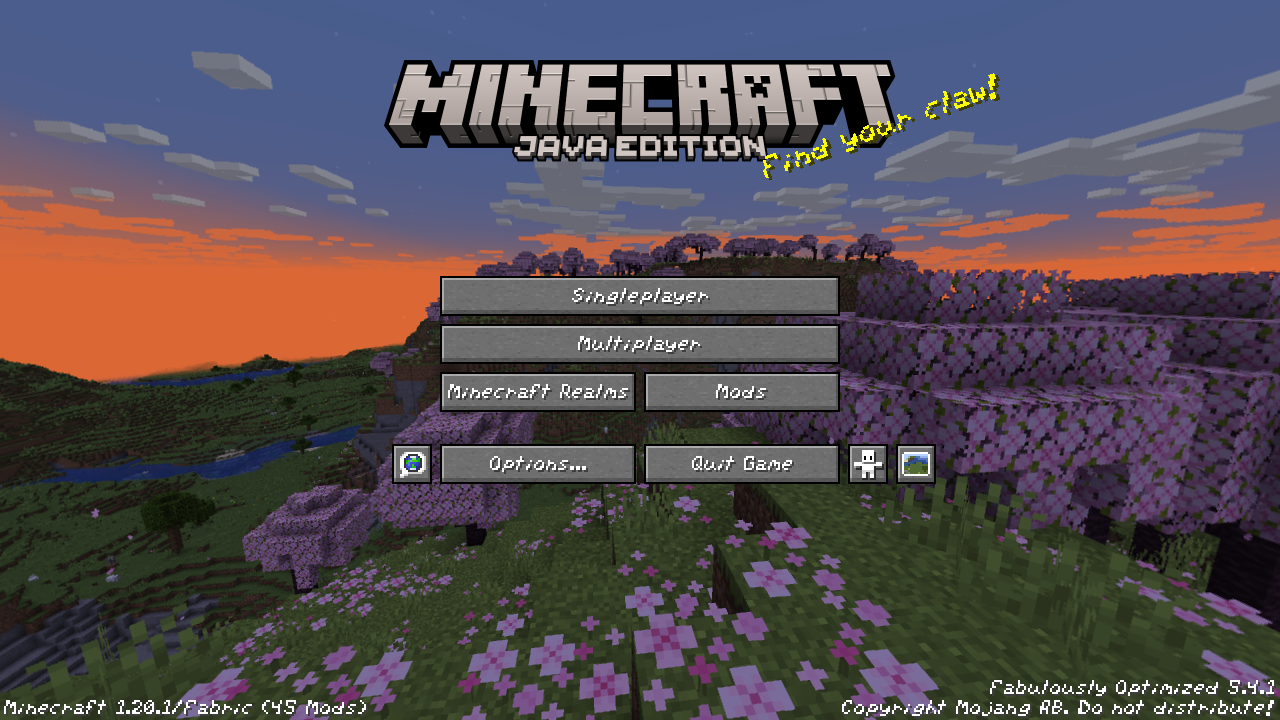
A resource pack soley dedicated to tweaking the font of Minecraft. Mainly wanted to make this because I felt like the original font got boring to look at (I like my letters stylish)
Will (probably) be tweaked more in the future as time goes on.
How it looks as of now: